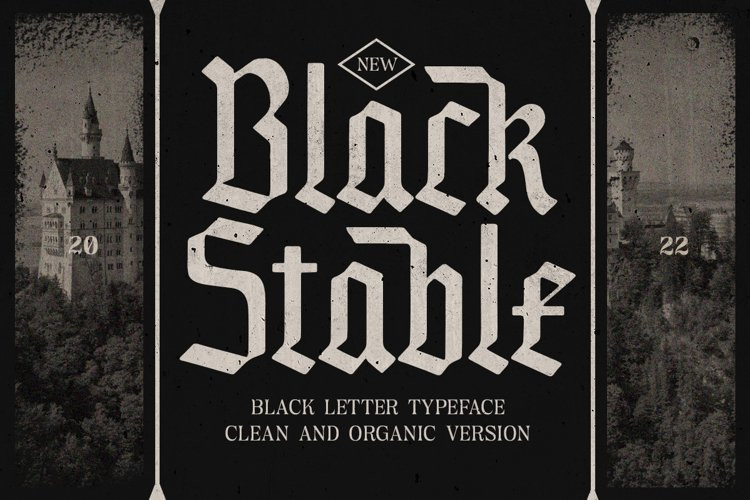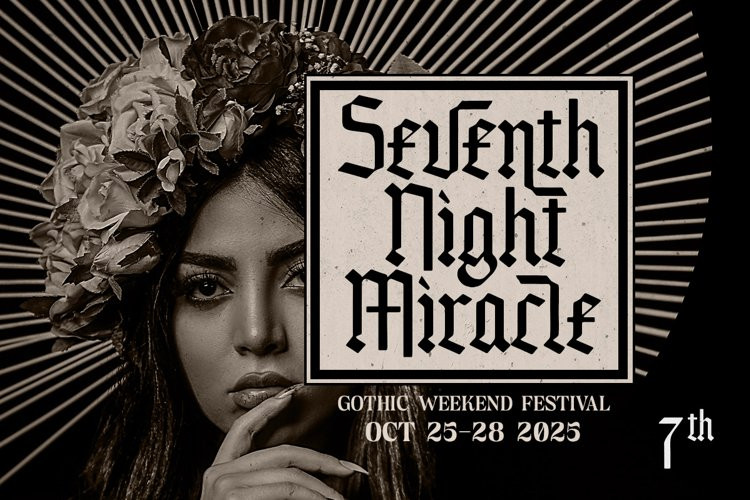
Black Stable Font
Black Stable FontIntroducing, Black Stable – A modern blackletter typeface. This type of font perfectly made to be applied especially in logo, and the other various formal forms such as Logo, Clothing, Fashion, Headline, or any type of advertising purpose.